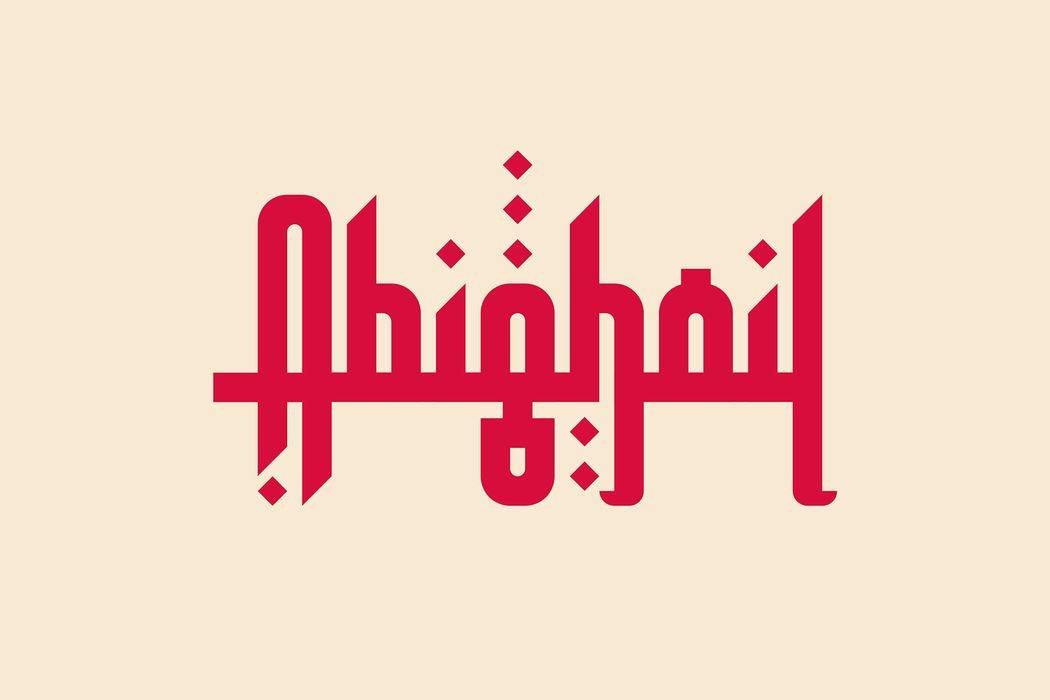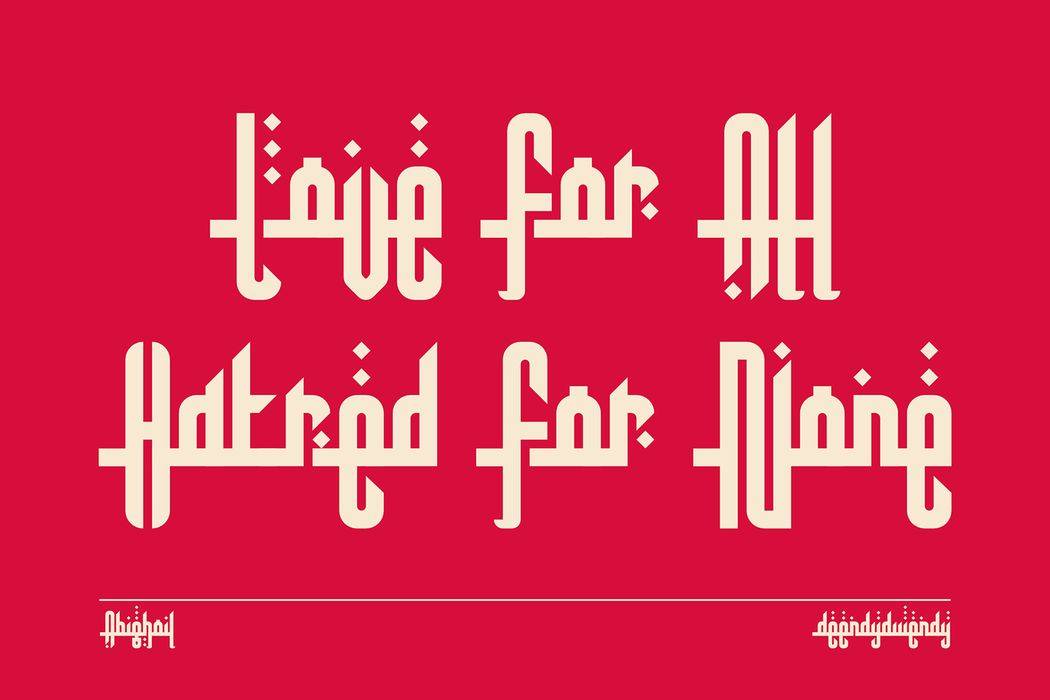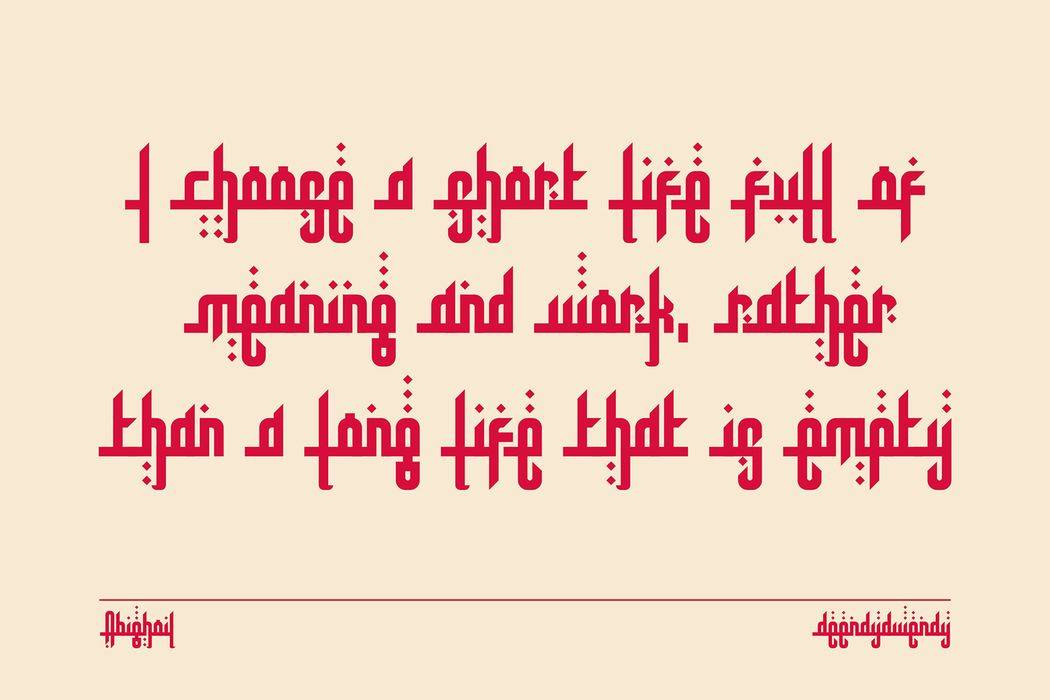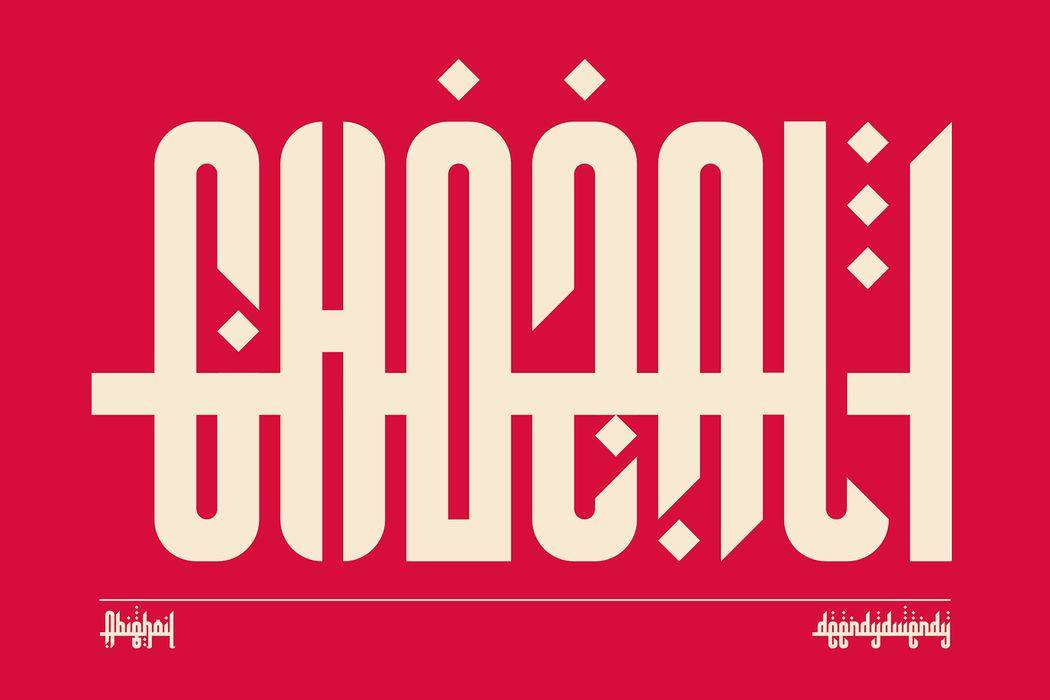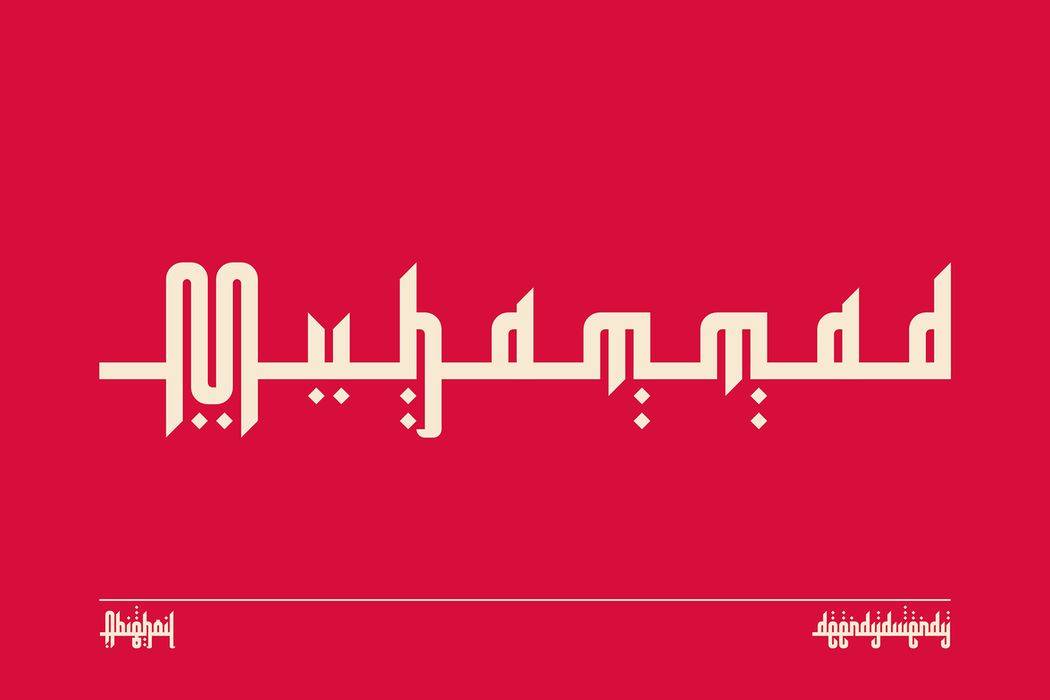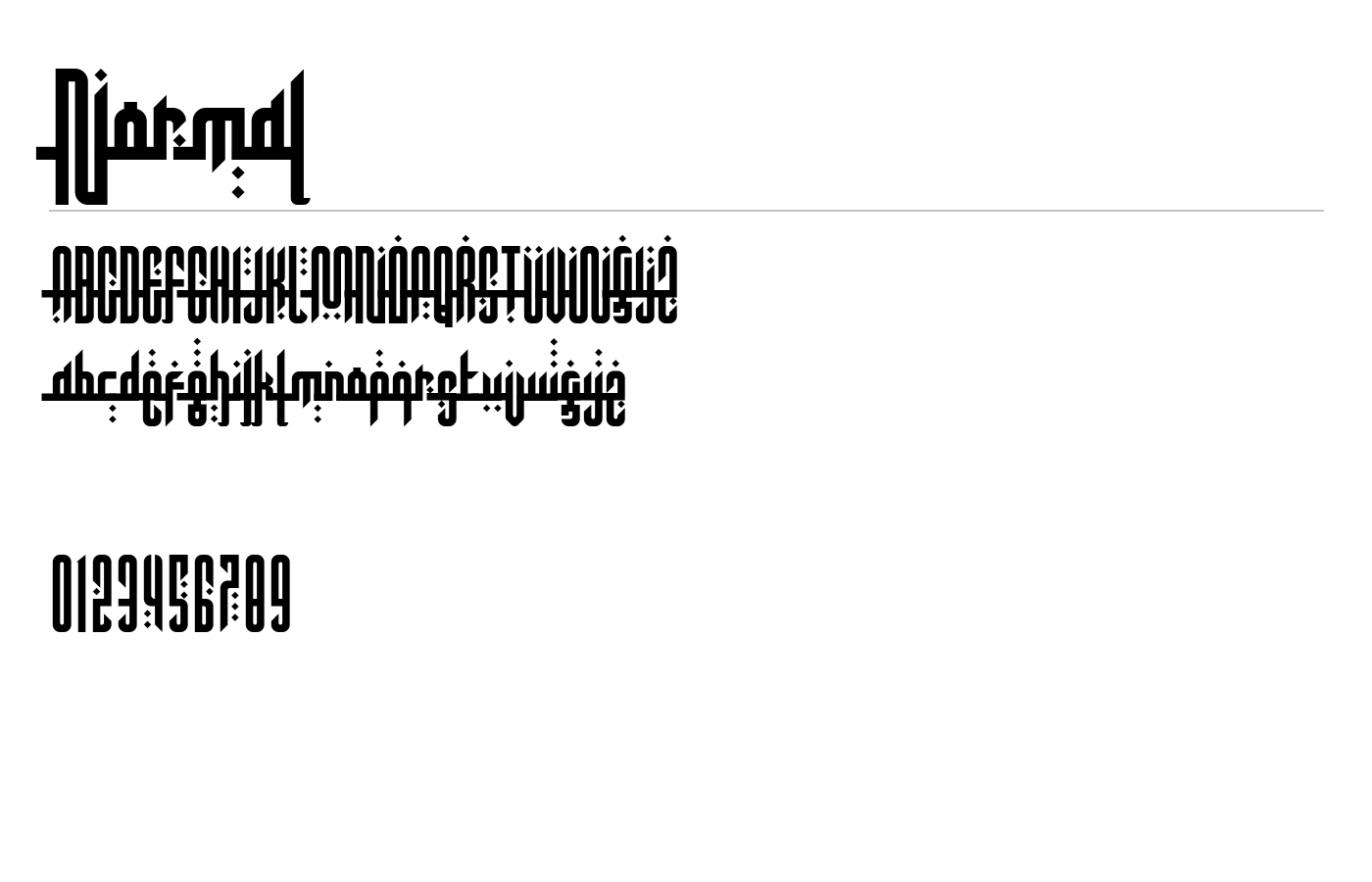
Abighoil is a bold, condensed display font with a highly geometric and ornamental style, characterized by its tall, narrow letterforms and distinctive diamond-shaped embellishments. Its unique design exudes a modern, avant-garde personality, making it ideal for attention-grabbing logos, headlines, and artistic projects where a striking, futuristic vibe is desired. This font works best in creative branding and editorial uses where impact and individuality are key.
Abighoil Font
About Abighoil Font